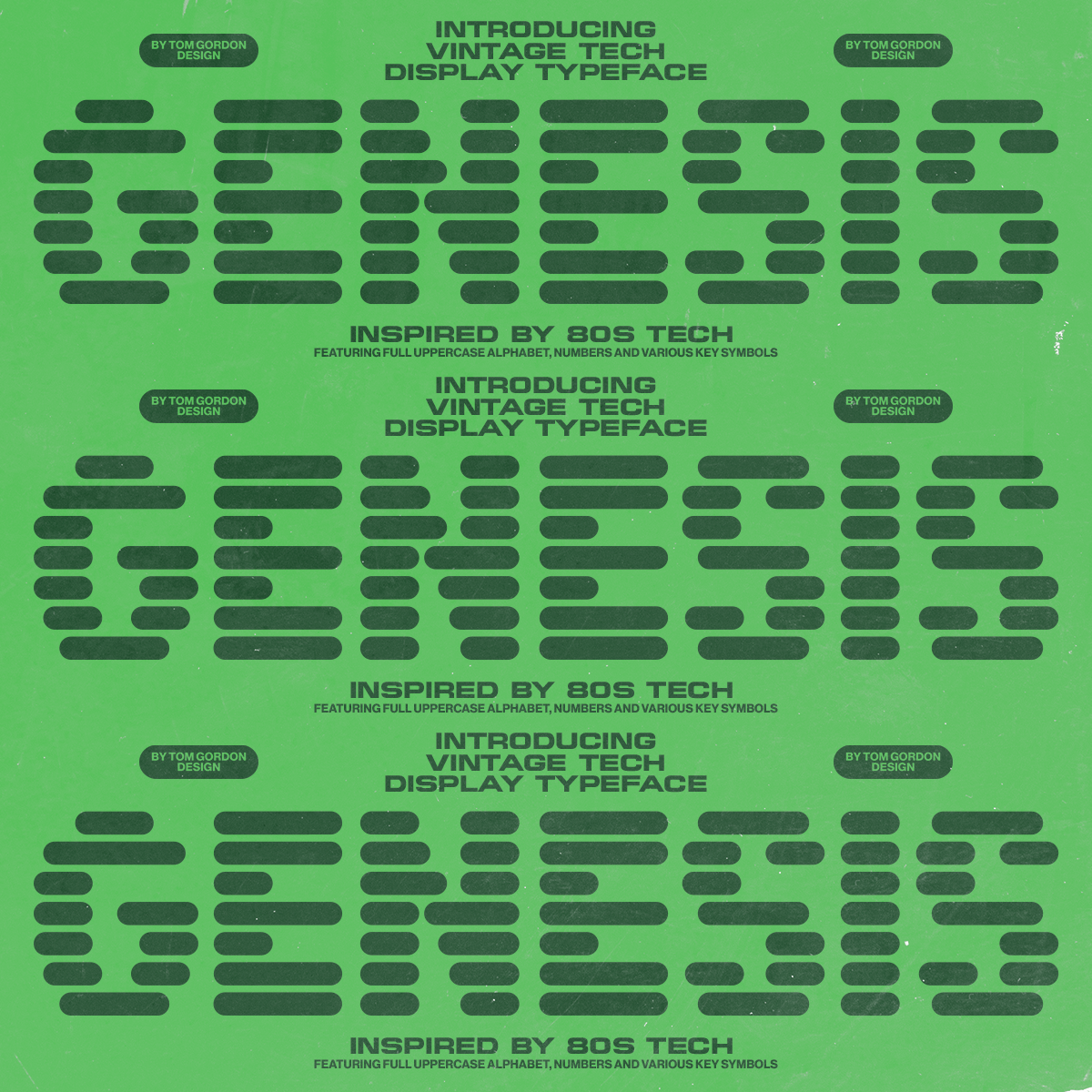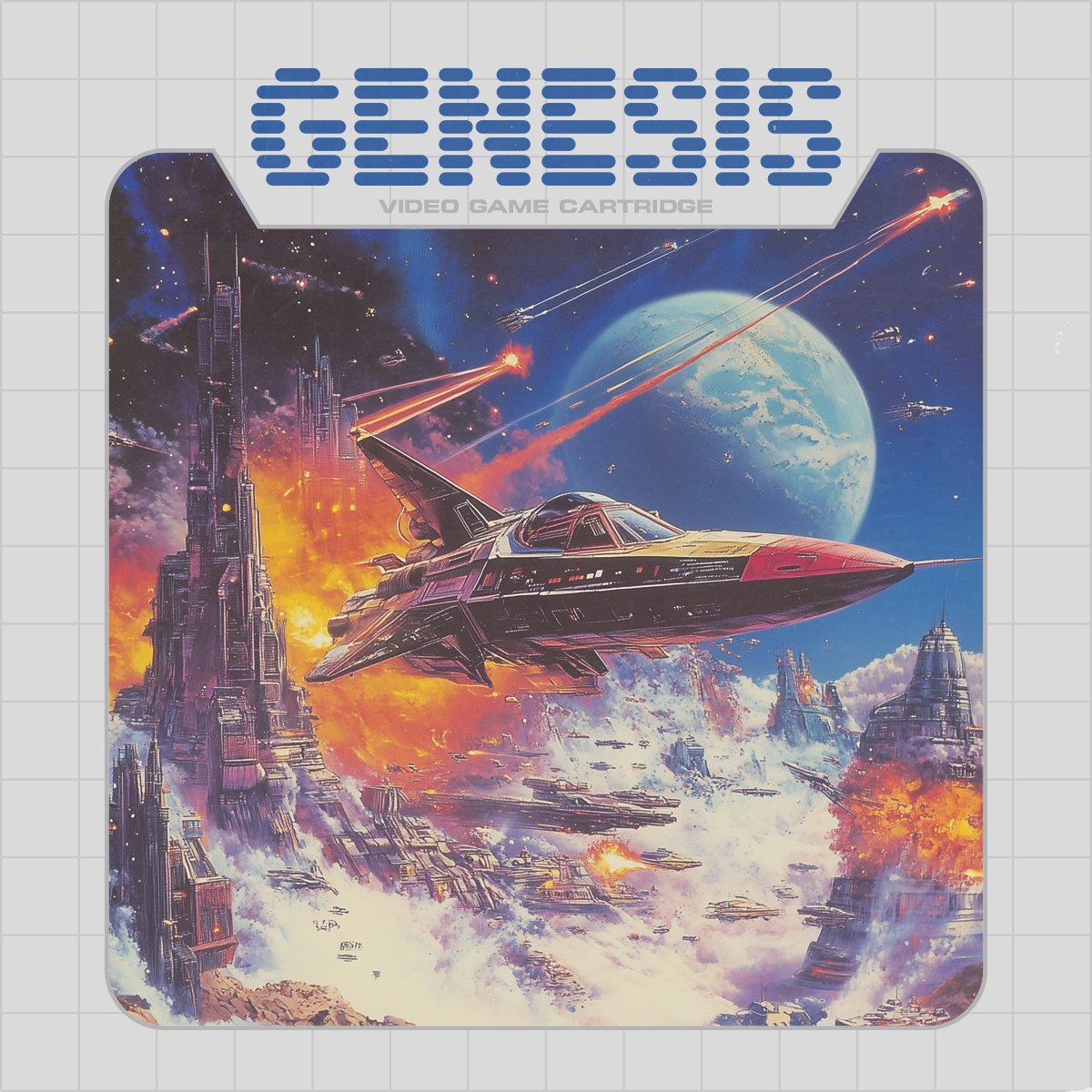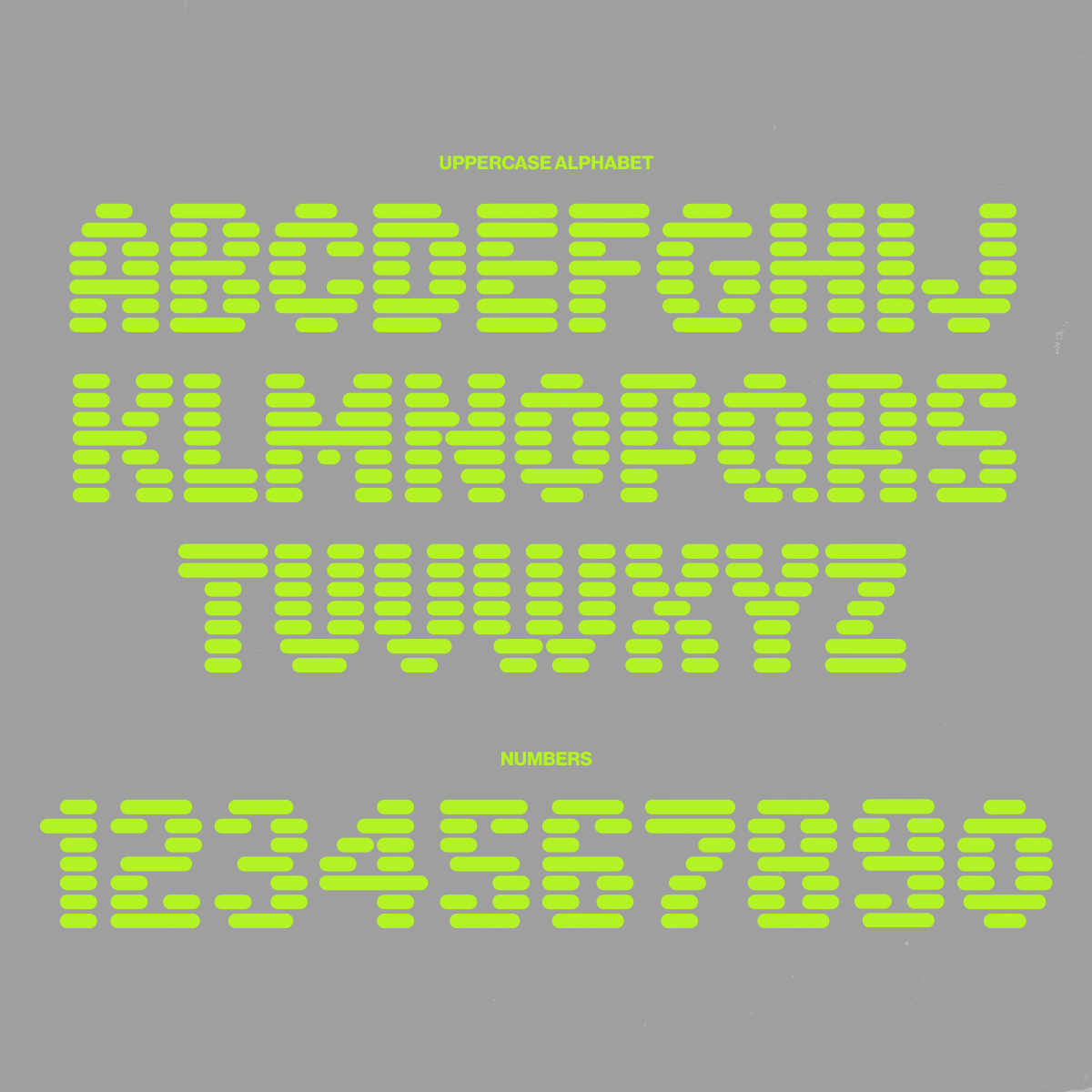
Genesis is the perfect throwback font to the vintage 80s tech era!
Create that Atari, Sega and 80s sci fi movie aesthetic with this chunky display font.
Full Uppercase (only) Alphabet
Numbers and various symbols